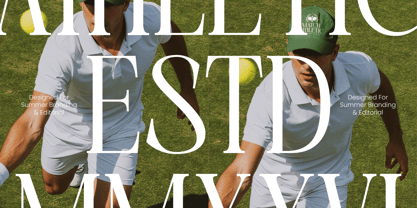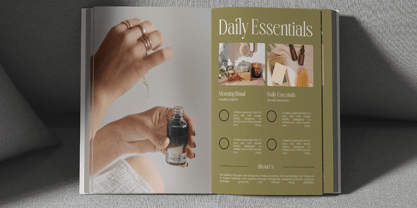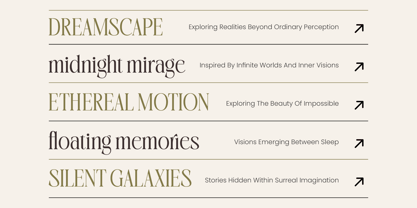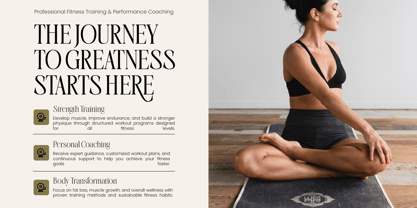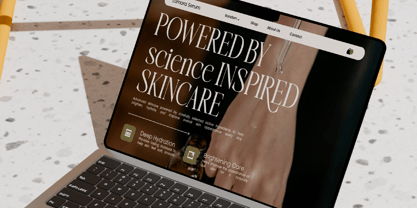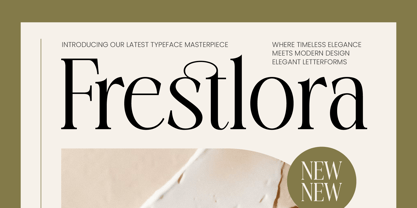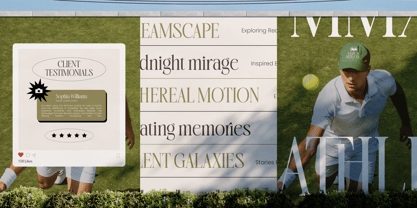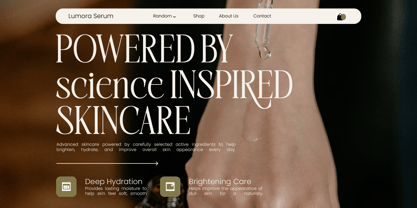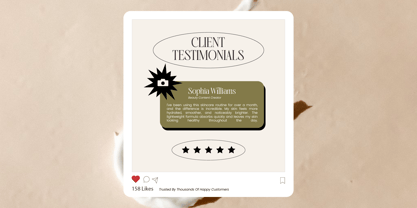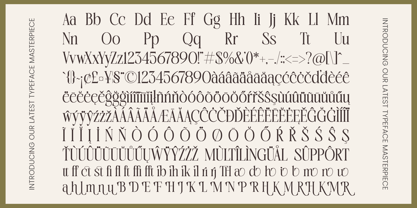
Frestlora
by Timelesstype Studio
The Frestlora Font Family was designed by Heru Utama Putra and published by Timelesstype Studio. Frestlora contains 2 styles and family package options. More about this family
Frestlora - Modern Editorial Serif. This typeface is a masterfully crafted high-contrast serif that strikes a perfect balance between classic tradition and contemporary flair. Its refined letterforms and sharp detailing exude a sense of high-end luxury, ensuring your headlines and branding stand out with a distinctively polished aesthetic that commands immediate attention.
Exceptional versatility defines the core of this typeface, allowing it to function beautifully across both digital and print media. With its extensive multilingual support, Frestlora - Modern Editorial Serif adapts seamlessly across global markets, making it incredibly versatile for international projects. This comprehensive glyph set ensures that your message remains clear and stylish regardless of the linguistic context, providing a consistent brand voice for any global campaign.